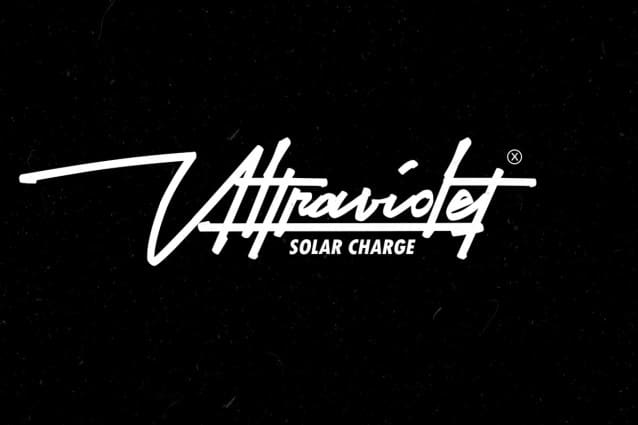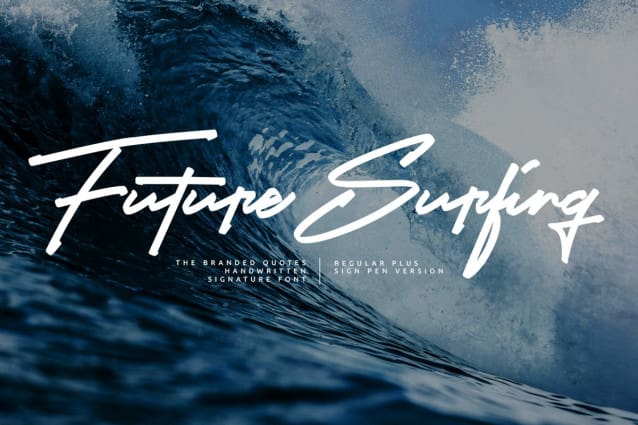
Future Surfing Font
Future Surfing font is heavily influenced by Surfskate and Electric Dirt Bikes. A bold signature-style font that works well with branding identity and logo initials. It has the Future Surfing Sign Pen version that emulates a blotted ink lines.